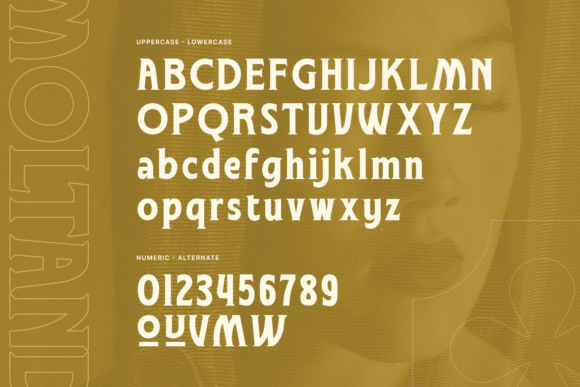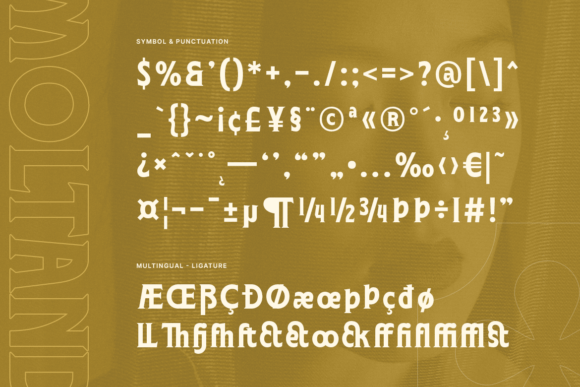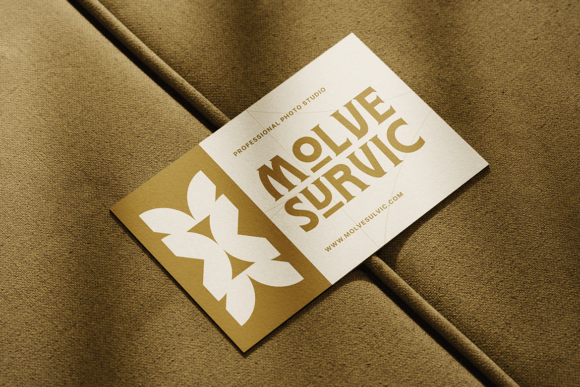
Introduction to Moltand Font
Moltand is a bold display serif typeface designed for strong typographic presence.
👤 Author TypeFactory
It combines classic serif structure with amplified weight and confident proportions, making it effective for large-scale applications and impactful layouts The letterforms feature sturdy vertical strokes, defined serifs, and balanced curves that maintain readability while delivering visual emphasis.
Key Features of Moltand Font
Why Choose Moltand Font?